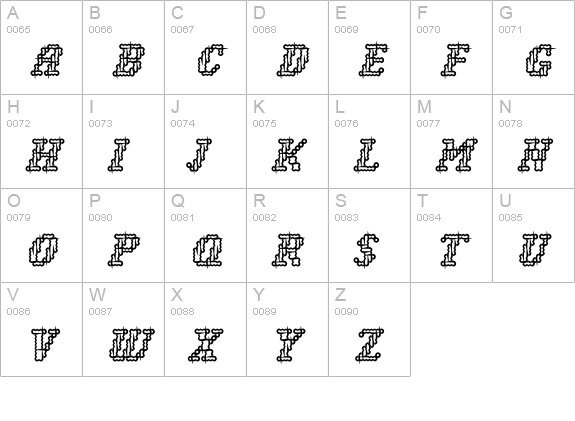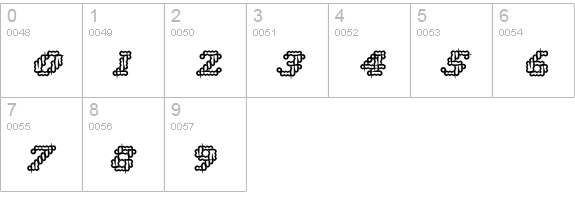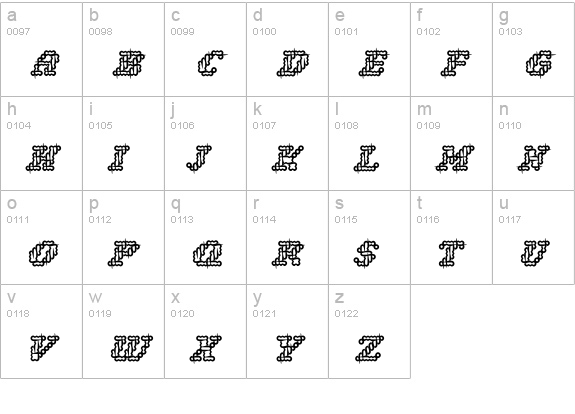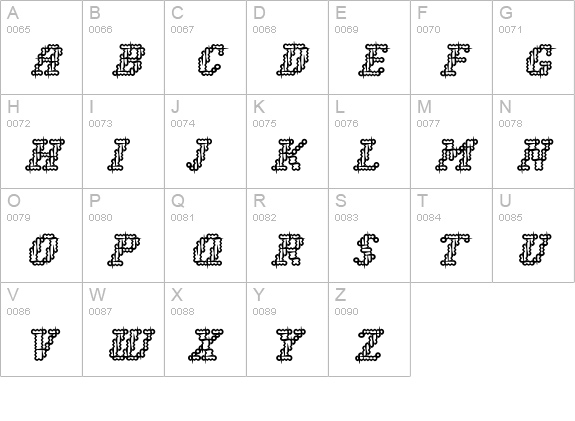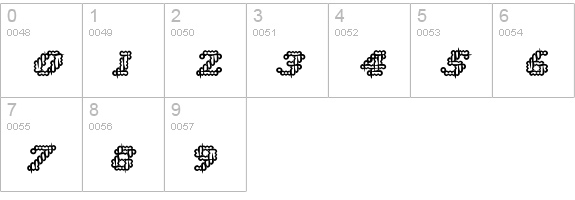
NarlyInlineInline Font Details
Introducing NarlyInlineInline font, a striking display typeface that effortlessly combines boldness with elegance. This unique font features inline detailing that adds a touch of sophistication to any design project. With its modern yet timeless appearance, NarlyInlineInline is perfect for creating eye-catching headlines, logos, posters, and more. What sets NarlyInlineInline apart is not only its captivating design, but also the fact that it is available for free download at FontsMarket.com. This means that you can easily access this stylish font and incorporate it into your creative work without any cost. Embrace the versatility and charm of NarlyInlineInline font today and elevate your designs to new heights.